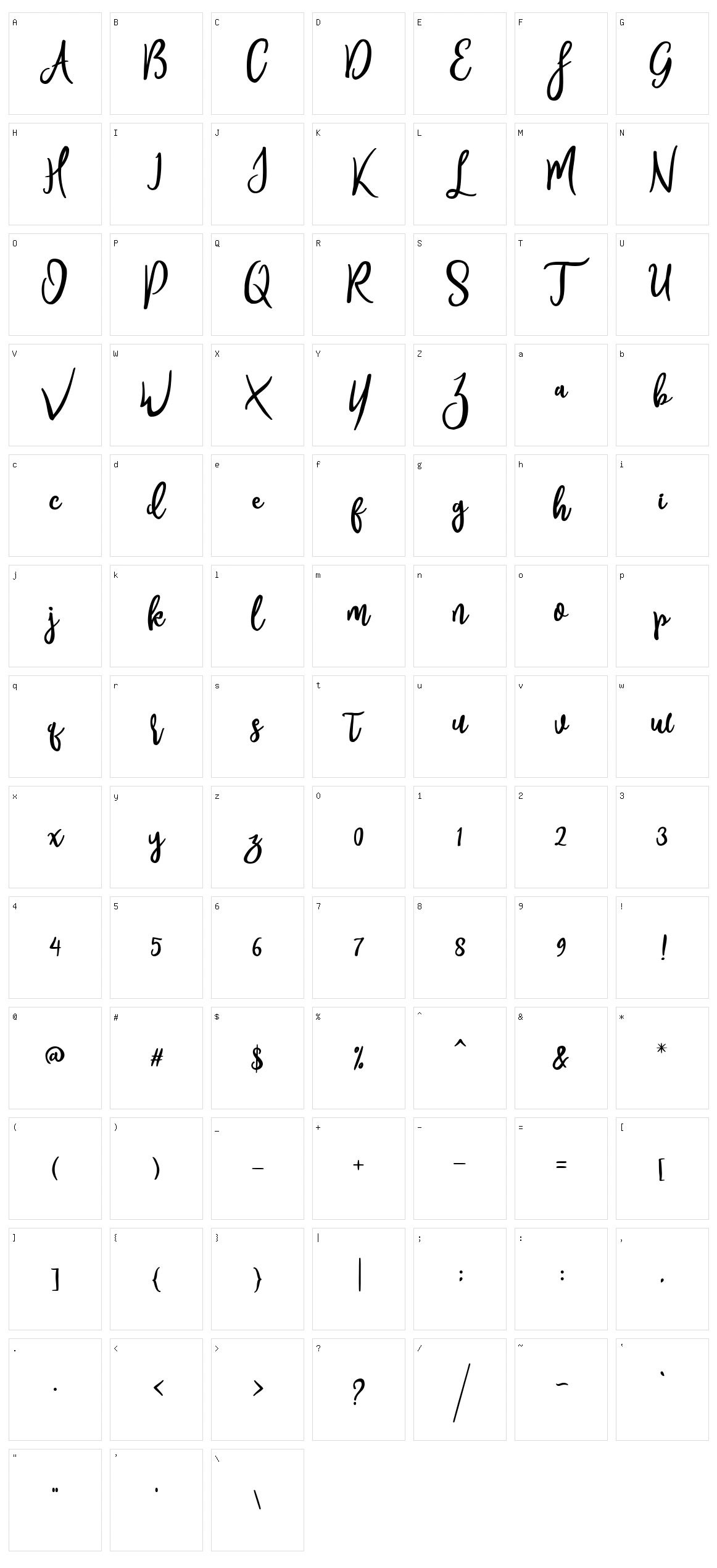
The free font Goodies Alt 2 is carefully designed by Font Bundles, showcasing a thoughtful balance of creativity and usability and falls under the Script font style. When you download the ZIP file, it contains only 177.44 KB of font files, making it lightweight and quick to download. Please review the license details below to understand permitted usage and distribution rights. If license information is not available, we recommend using this font for personal projects only or contacting the author directly for commercial usage permissions.